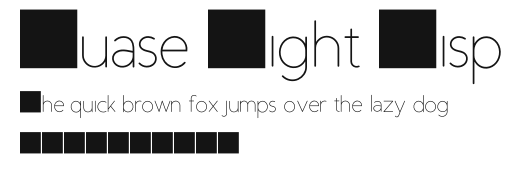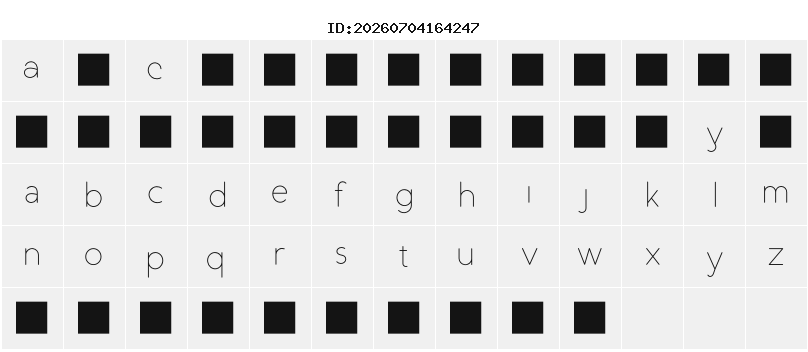
Duase Light Disp Preview
• Font Name: Duase Light Disp
• Full Font Name: Duase-LightDisplay
• Copyright: Duase Light Display is a font by Alvaro Thomaz Fonts, designed by Álvaro Thomáz in 2012.
• Designer: Álvaro Thomáz
• Manufacturer: Alvaro Thomaz Fonts
• Description: Duase Light Display is a font by Alvaro Thomaz Fonts, designed by Álvaro Thomáz in 2012.
About Duase Light Disp.otf
Duase Light Disp.otf is a modern, elegant sans-serif font designed for ultimate readability and visual harmony. Perfect for branding, headlines, web design, and print materials.